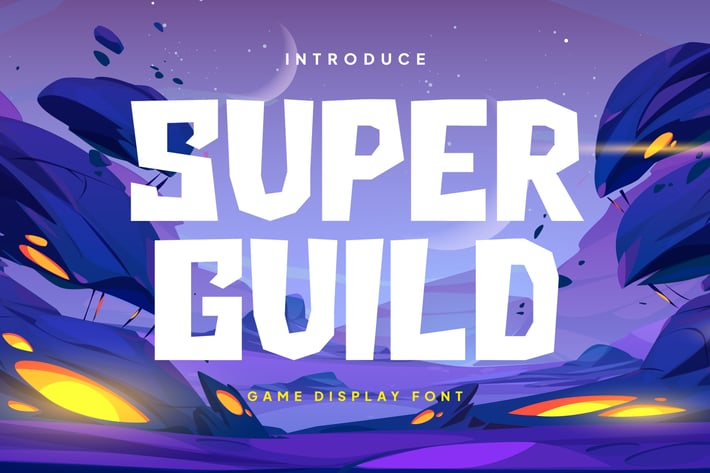
Super Guild - Game Display Font
Game Guild - Game Display Font
The Game Guild is a game display font that is perfect for a variety of uses. This font is available in TTF and OTF formats, so it can be used in a variety of graphic design and social media applications.